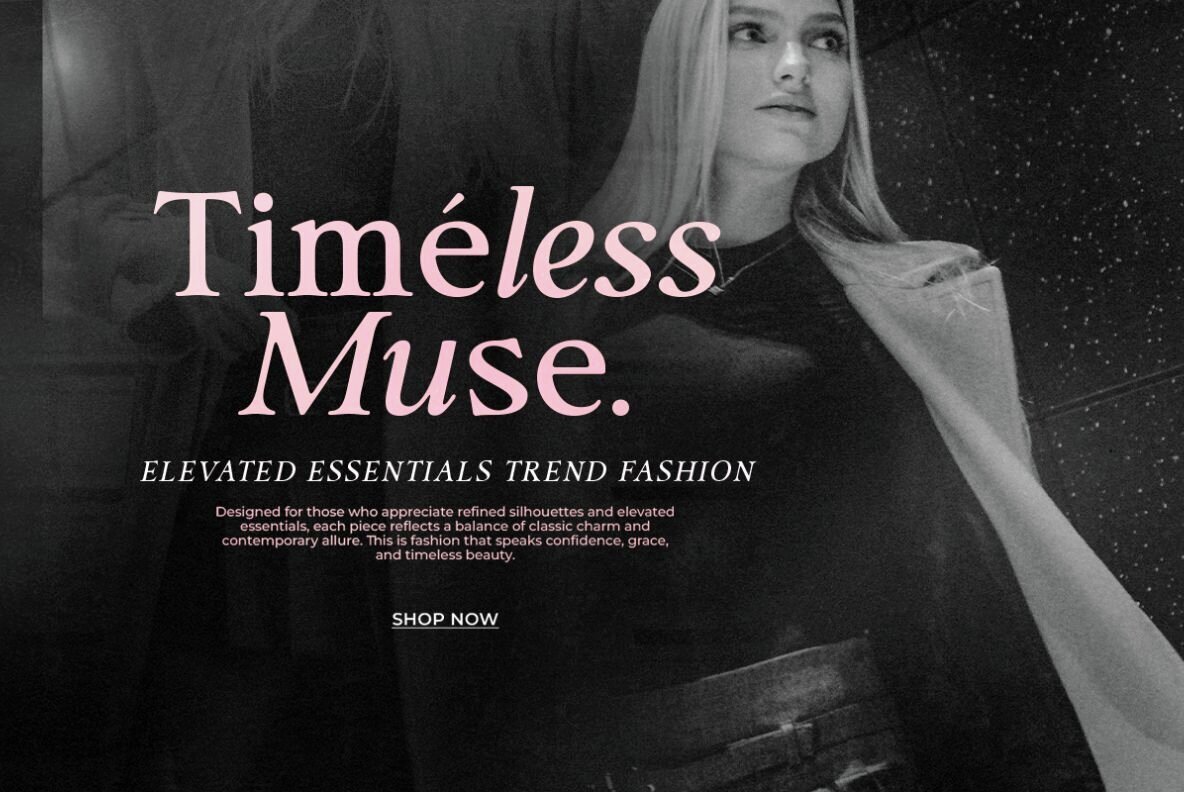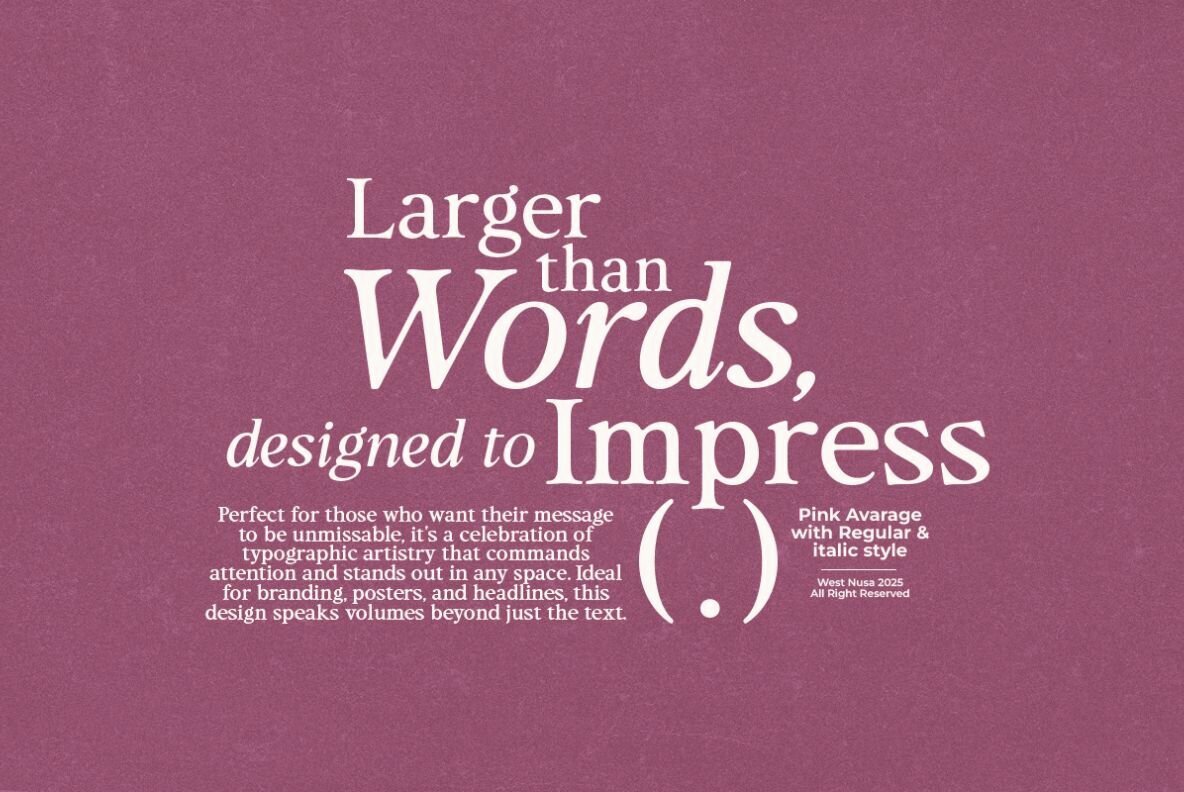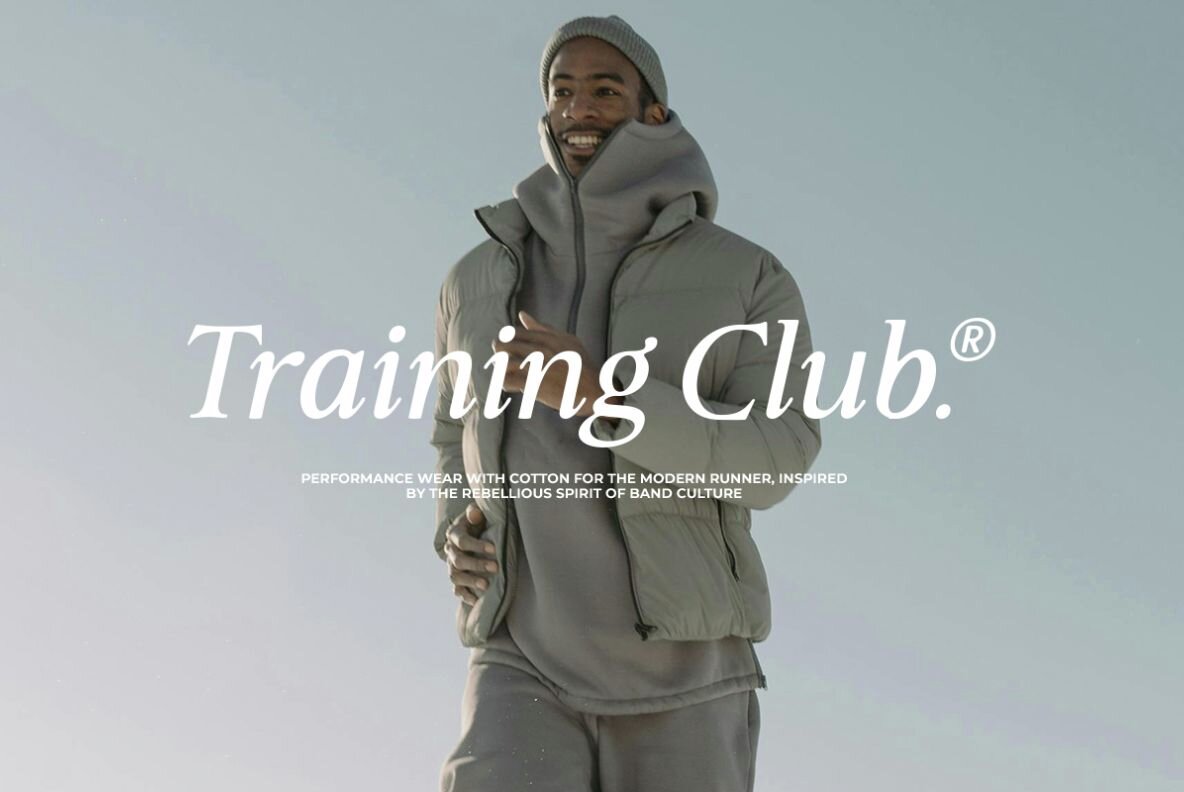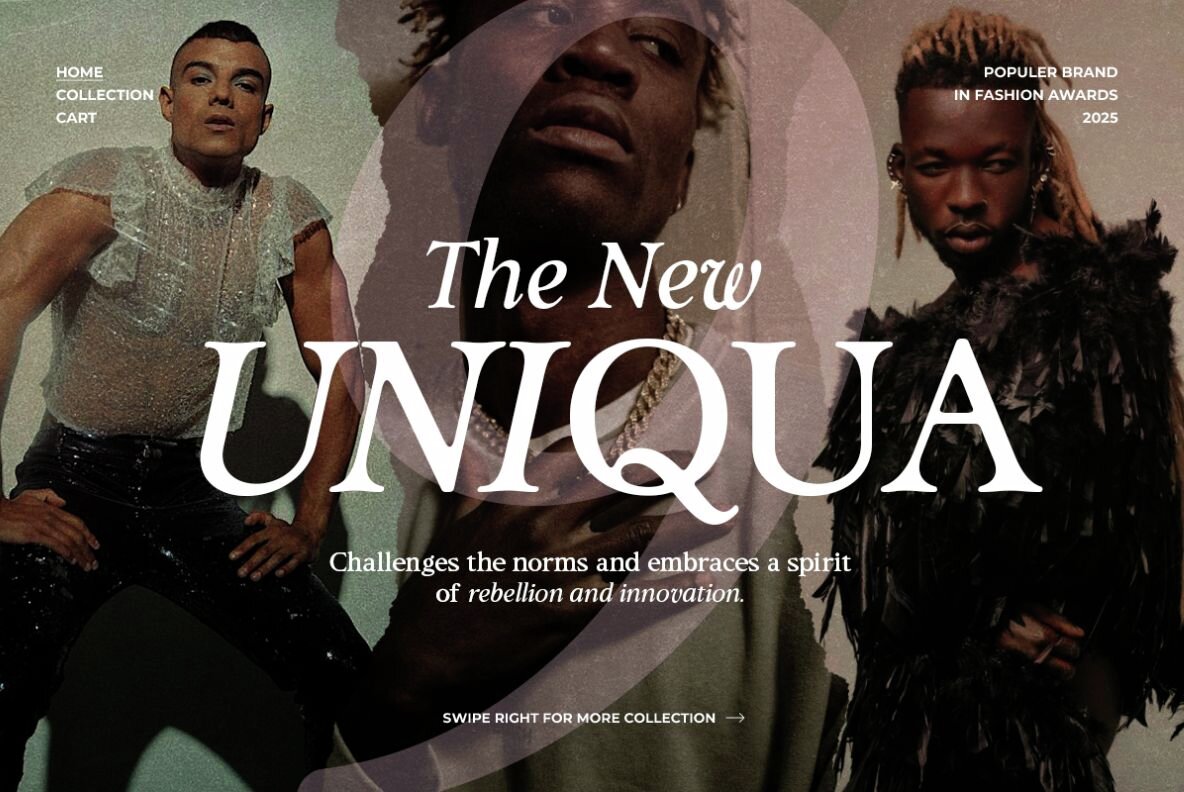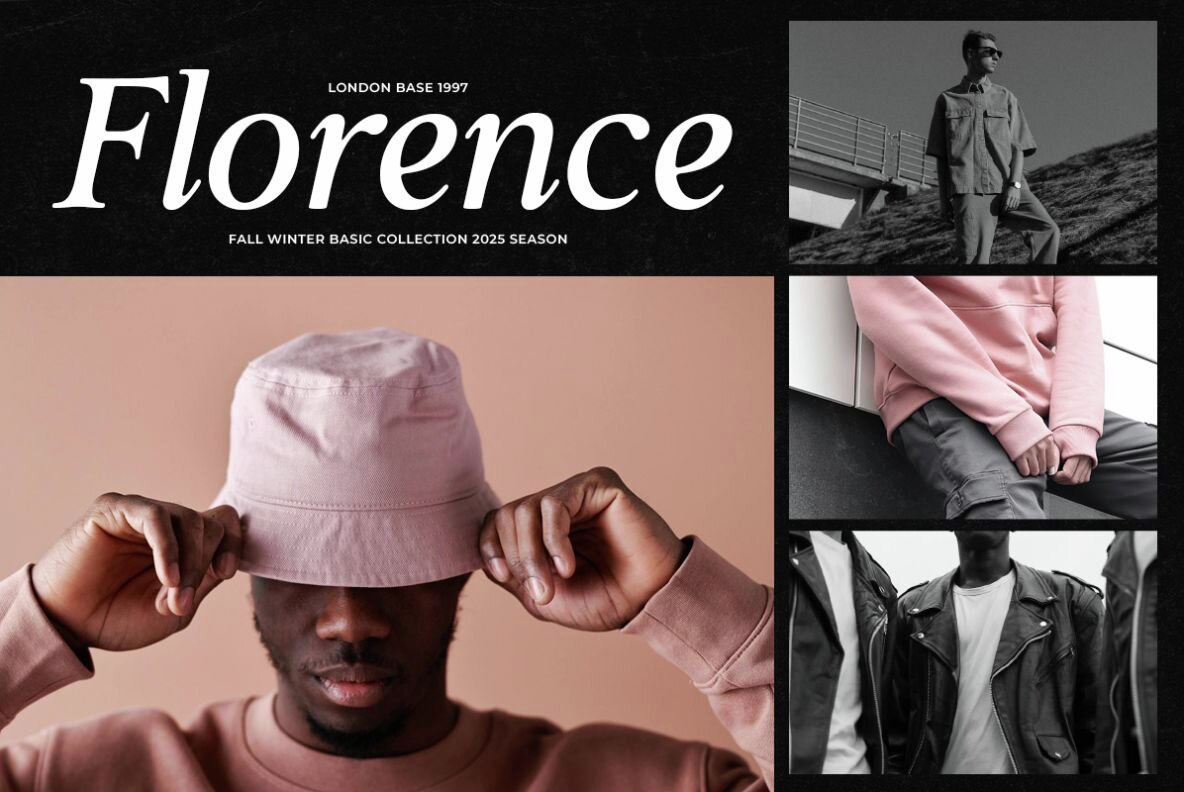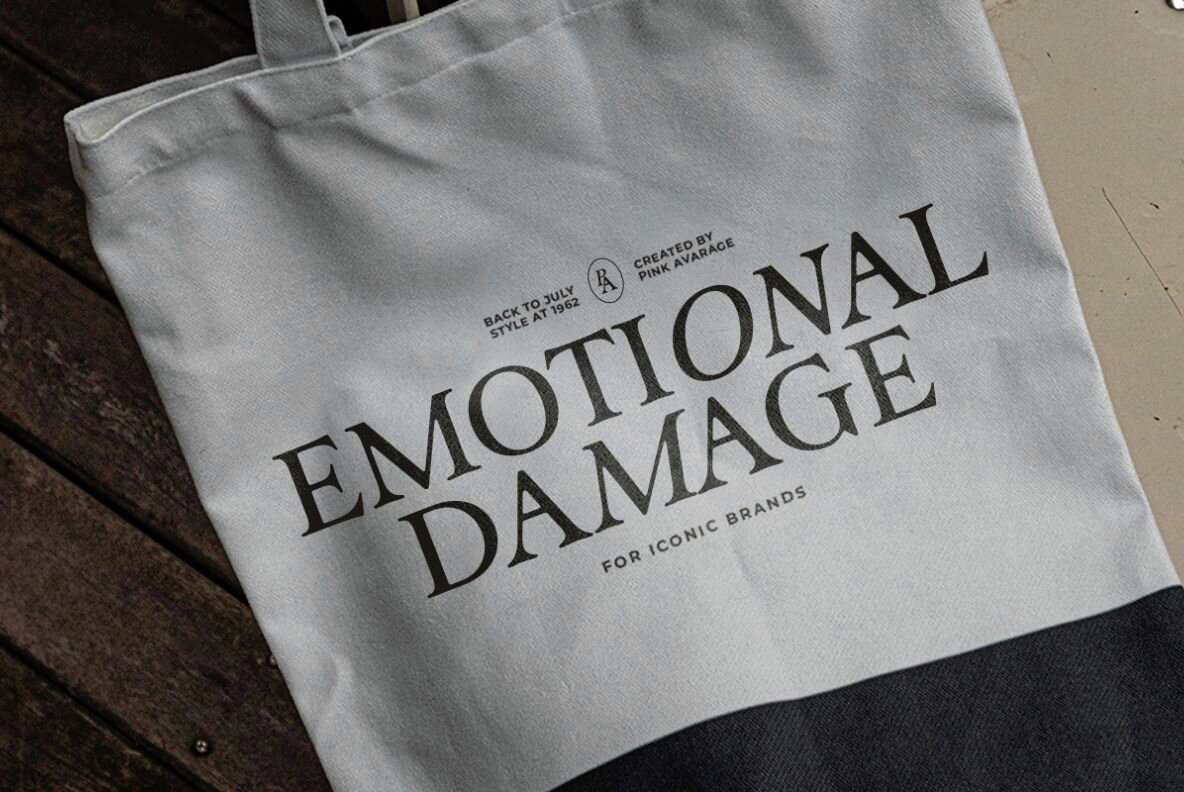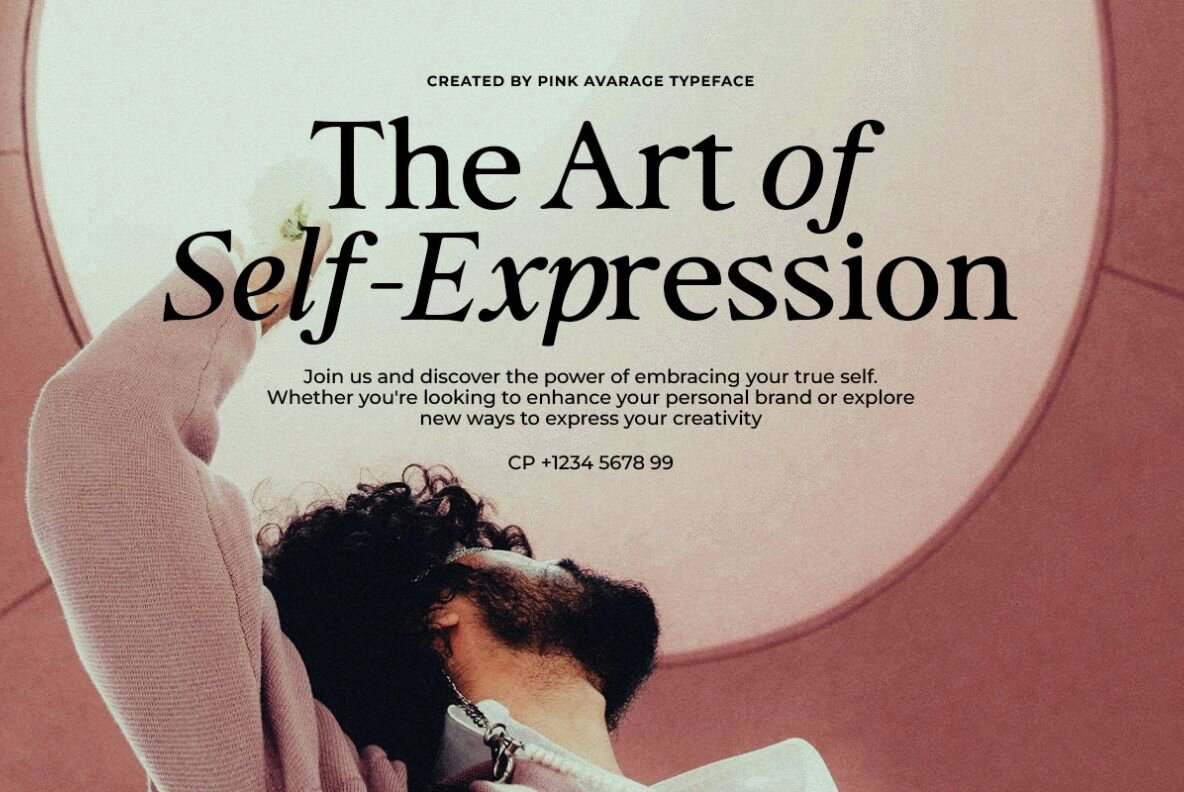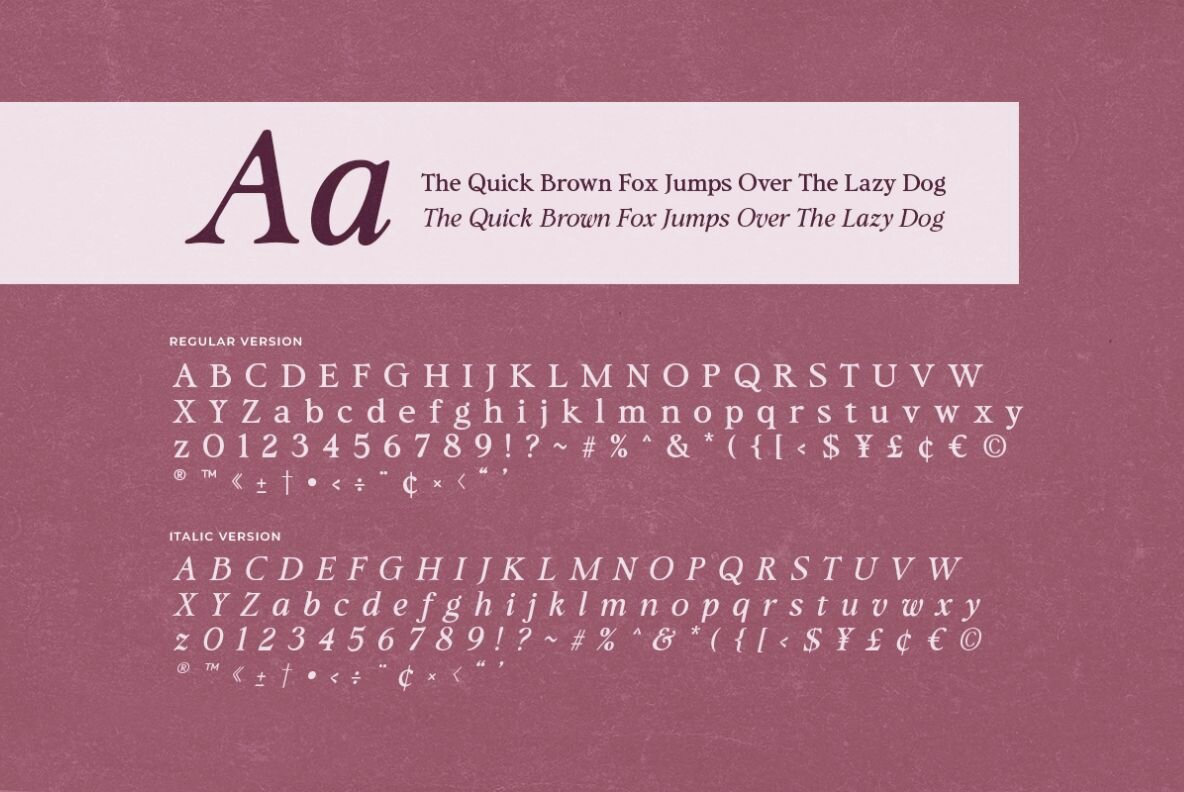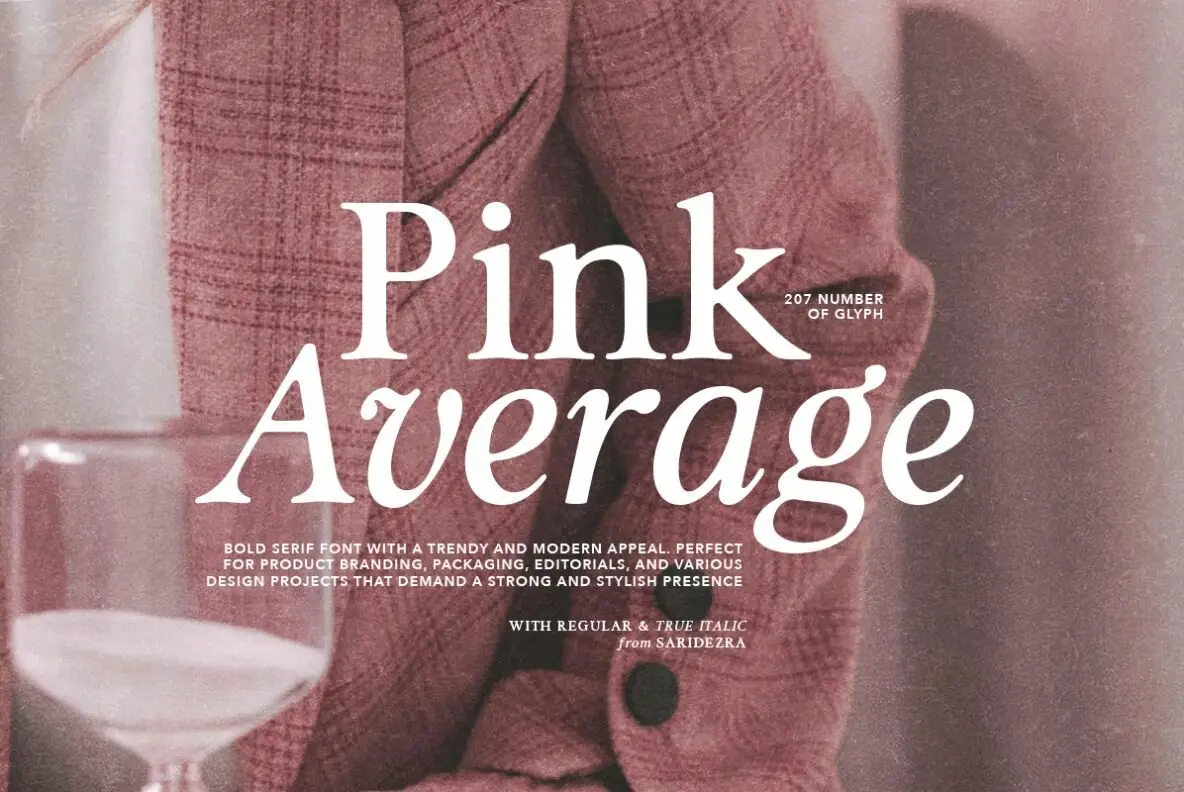
Pink Average Font
Pink Average offers a contemporary touch with its bold serif style paired with true italics, ideal for a myriad of creative projects. The typeface's chic aesthetic enhances wedding invitations, logos, and brand identities, creating a seamless blend of modernity and tradition.Pink Average: Bold Serif for Modern Design